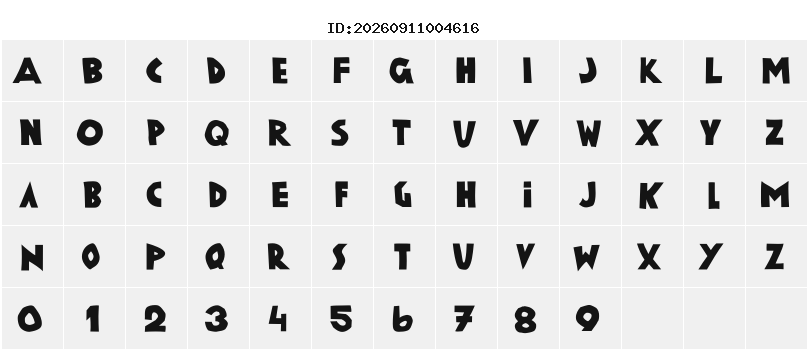
Vienna Preview
• Font Name: Vienna
• Font Style: Black
• Full Font Name: Vienna-Black
• PostScript Name: Vienna-Black
About Vienna.ttf
Vienna.ttf is a modern, elegant sans-serif font designed for ultimate readability and visual harmony. Perfect for branding, headlines, web design, and print materials.